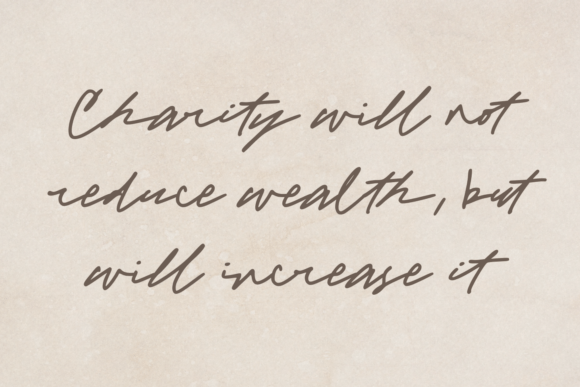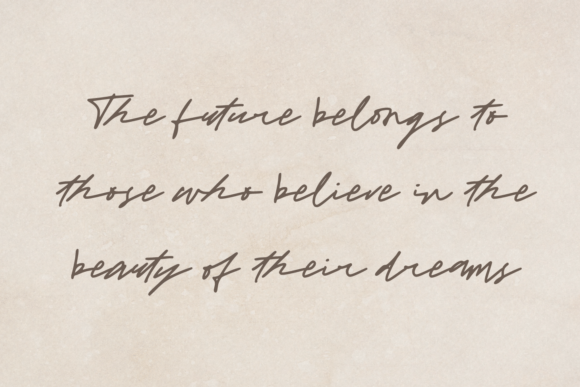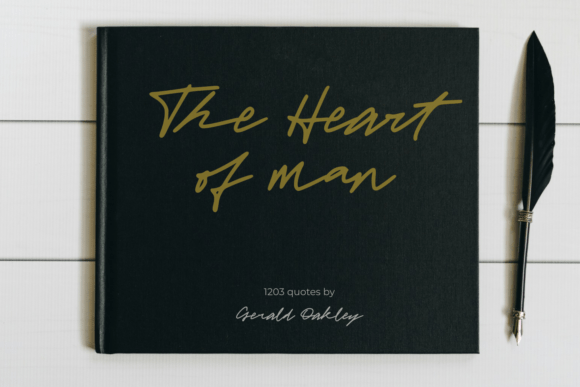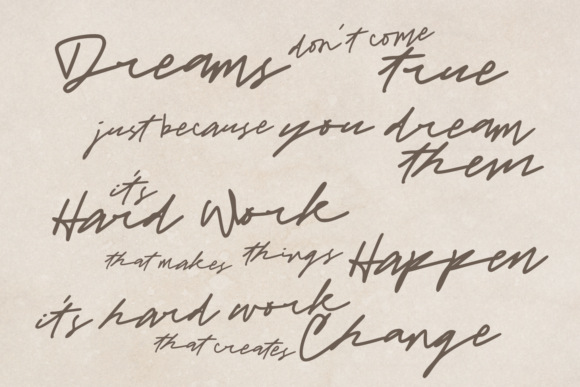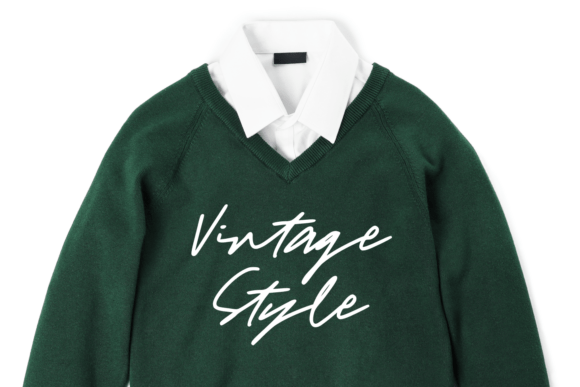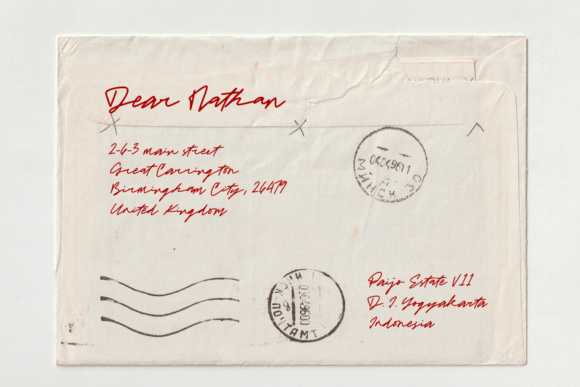
Introduction to Romie Julia Font
Romie Julia is an irregular, freestyle handwritten script that celebrates imperfection and personal expression.
Each character is drawn with loose movement and varied rhythm, creating a natural flow that feels spontaneous and alive The uneven strokes and shifting letter shapes give the font a distinctive personality, as if every word were written in a moment of inspiration.
Key Features of Romie Julia Font
Why Choose Romie Julia Font?